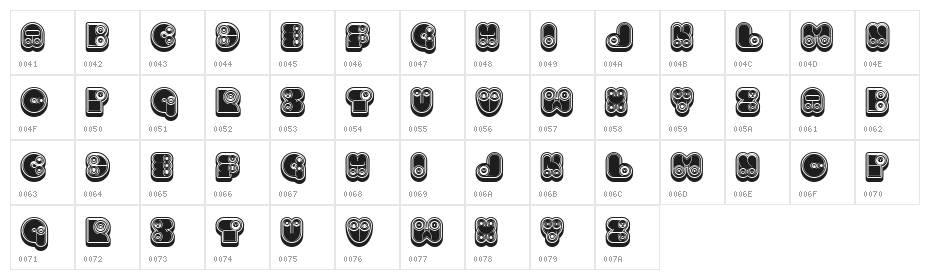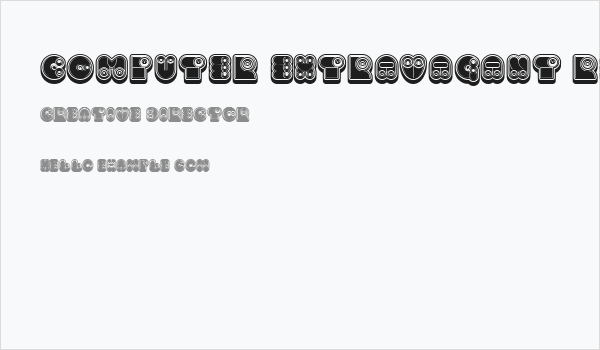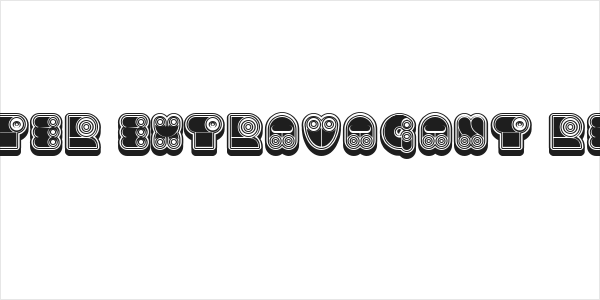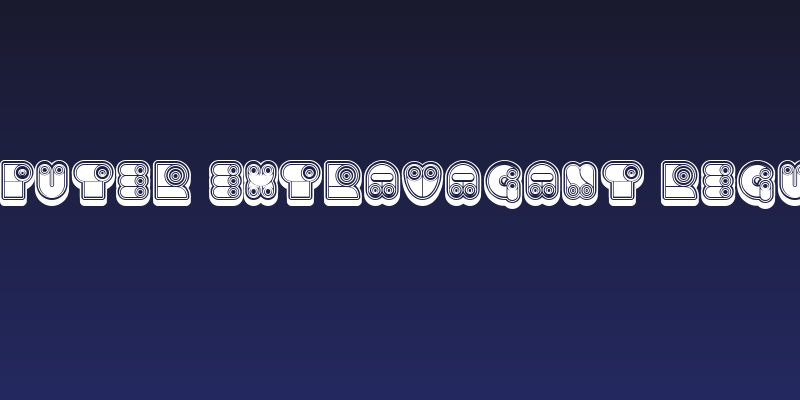
Computer Extravagant Regular Font
Computer Extravagant Regular Description
This font features a bold and playful design with a unique, decorative style. Each character is composed of multiple concentric circles, giving it a layered and three-dimensional appearance. The letters are outlined with a thick black border, enhancing their visibility and impact. This font is highly stylized, with a whimsical and extravagant flair, making it ideal for creative and eye-catching designs. The characters are evenly spaced, ensuring readability despite their intricate design. The font's boldness and distinctiveness make it stand out, perfect for projects that require a strong visual statement.
| Use Case | Logos, Posters, Headlines |
| Proposed Projects | Ideal for posters, logos, album covers, and any project needing a bold, artistic touch. |